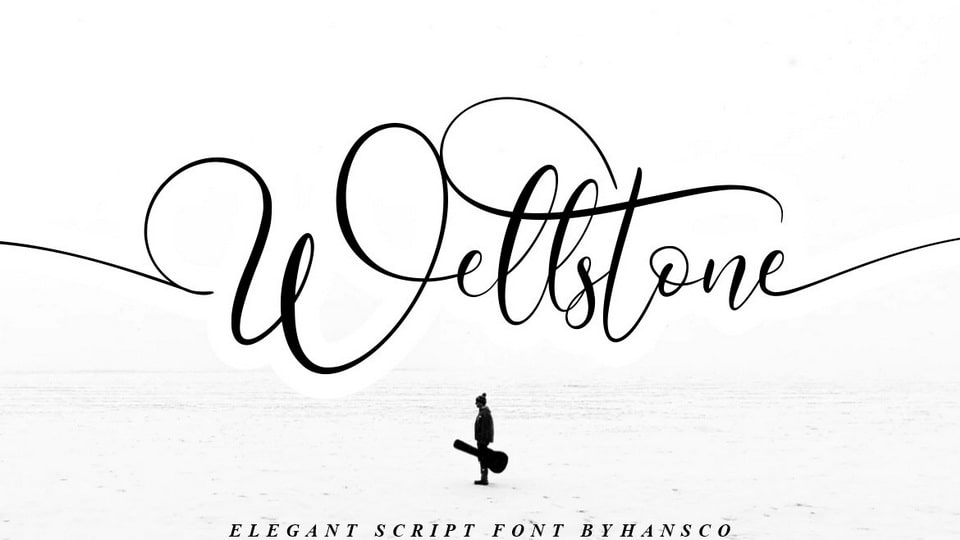
Download Wellstone font, a beautiful script typeface that exudes elegance and luxury. Wellstone font is specially crafted for those who need a beautiful and refreshing look to their designs.
Designer: HansCo